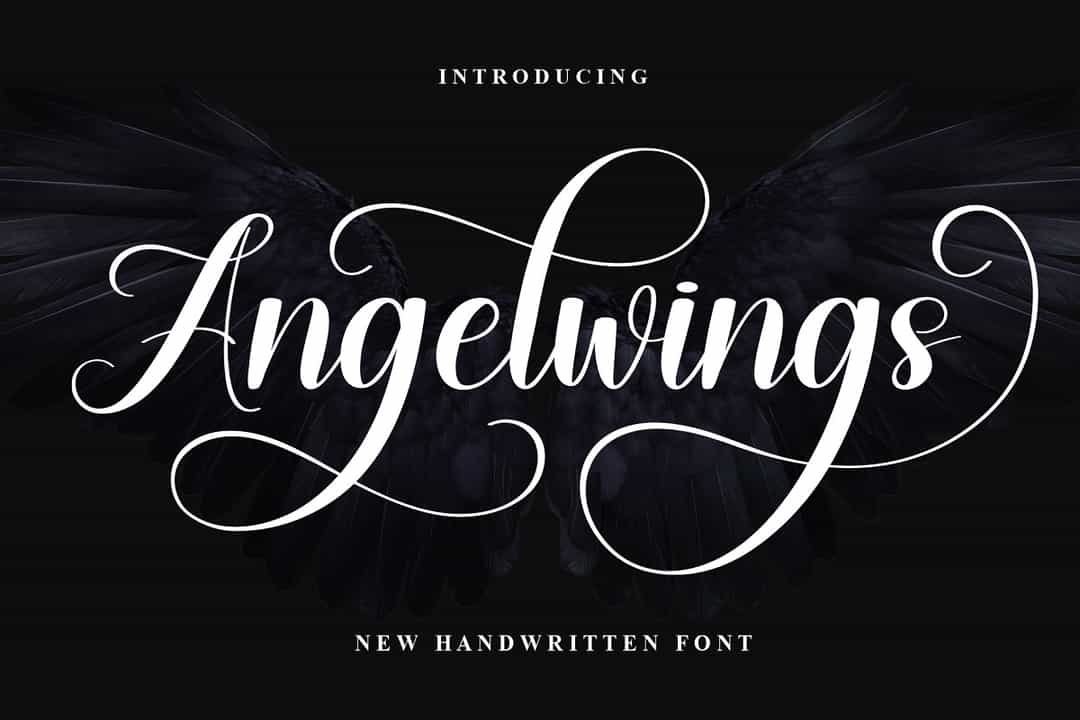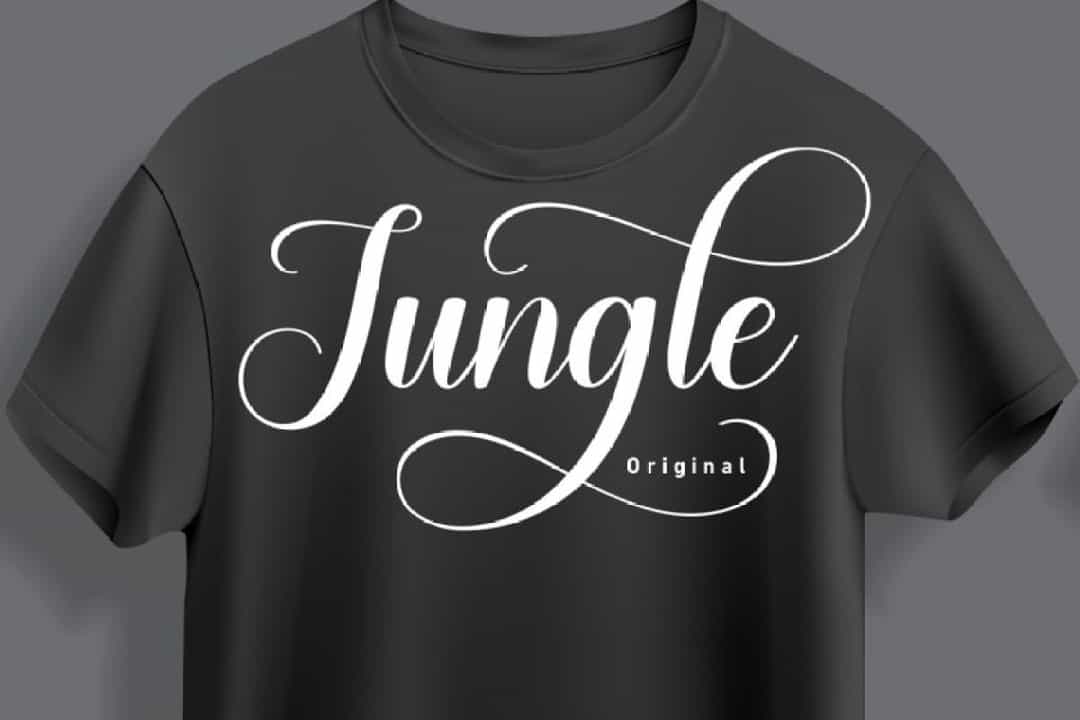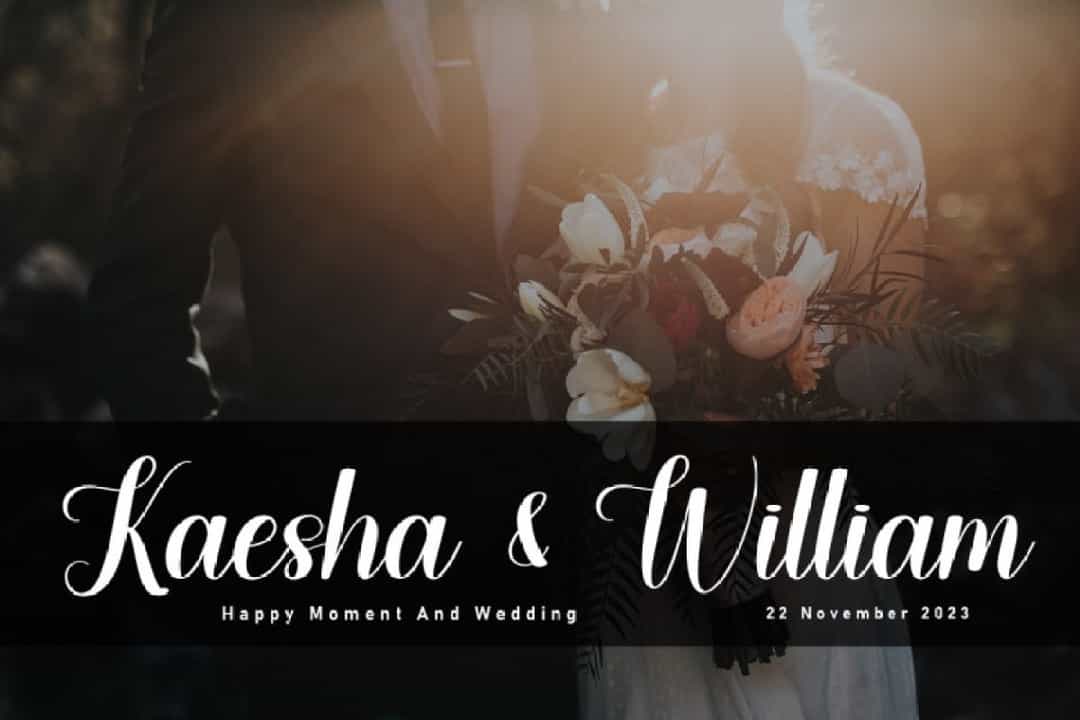
Angelwings is an adorable and warm handwritten script font with its organic yet distinctive design making it the ideal addition to an array of styles – the only limit lies within your imagination!